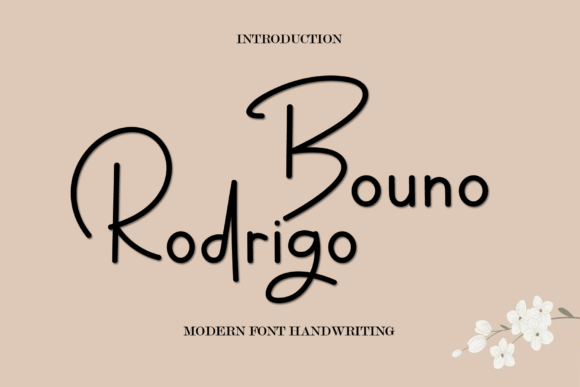
Immerse yourself in the realm of typography with Bouno Rodrigo, a script font that dances with elegance and charm. Inspired by the beauty of classic penmanship, Bouno Rodrigo captures the essence of effortless creativity. Its whimsical strokes and playful curves evoke a sense of nostalgia, while its modern twist adds a touch of contemporary flair.
Unleash your inner artist and let your imagination soar with Bouno Rodrigo. Perfect for logo designs, this font's unique character adds a personal touch that sets your brand apart. Create eye-catching headlines that command attention, and craft corporate identities that exude sophistication and style. Let Bouno Rodrigo be your creative partner as you develop memorable brand identities that resonate with your audience.
Bouno Rodrigo's versatility extends far beyond the world of logos. Its distinctive charm lends itself effortlessly to the apparel industry, where it can transform ordinary t-shirts into statement pieces. Unleash your creativity and craft posters that come alive with vibrancy, giving your message a captivating presence. Whether you're creating music, movies, games, or magazines, Bouno Rodrigo seamlessly blends with your vision, adding a touch of artistry that elevates your project.
Welcome Bouno Rodrigo into your creative design projects and watch as it effortlessly enhances your work. Its suitability for books, comics, cartoons, and even YouTube and Instagram content makes it an essential tool for storytellers and content creators alike. Let Bouno Rodrigo's captivating strokes bring life to your words, engaging your audience with its timeless appeal.
Join the creative revolution and embrace Bouno Rodrigo, the font that ignites your passion for design. Its captivating beauty and boundless versatility make it the perfect choice for those who dare to dream big and leave a lasting impression. Embrace the artistry of Bouno Rodrigo today and unlock a world of creative possibilities!